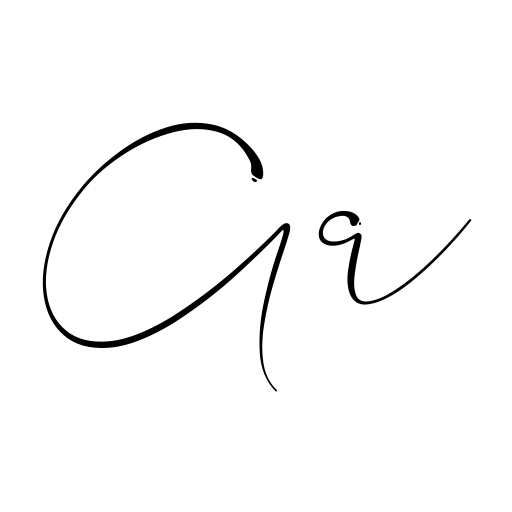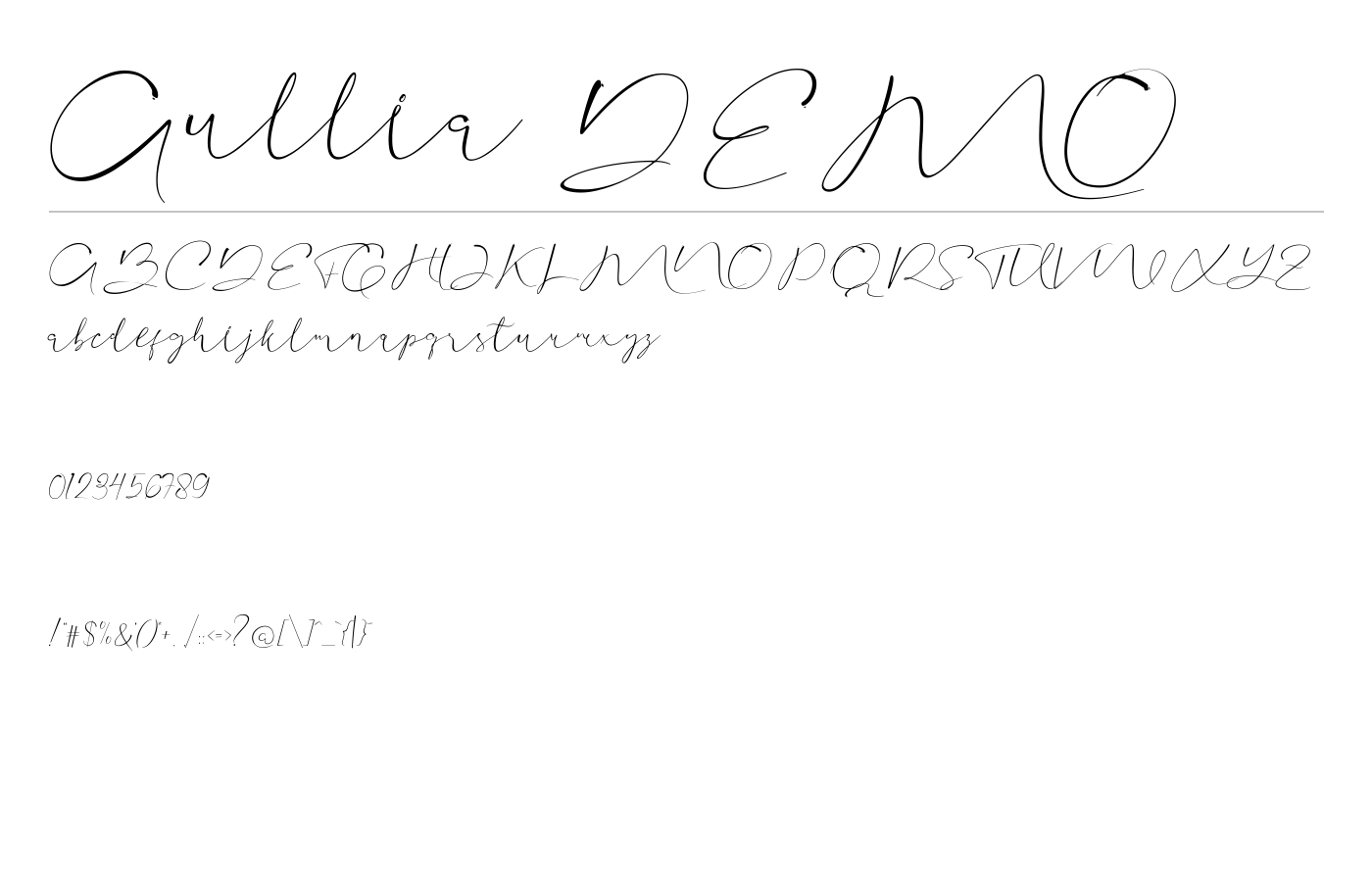
Aullia DEMO is an elegant, delicate script font with a light, airy feel achieved through its fine, flowing strokes and high contrast. Its handwritten style, featuring fluid letterforms and graceful curves, gives it a sophisticated yet personal touch, making it ideal for luxury branding, invitations, and artistic projects. This font works beautifully in designs that require a refined, expressive, and feminine aesthetic.
Aullia DEMO Font
About Aullia DEMO Font
| Font family | Aullia DEMO Font |
| Designer | GlyphStyle |